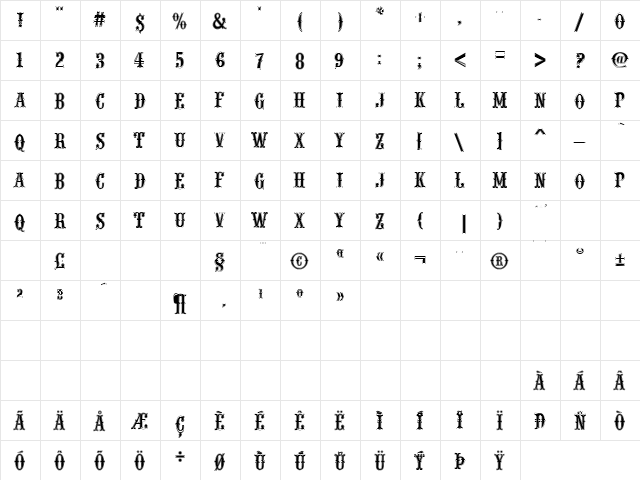
Woodtype URW Outline Regular
Design Context for Woodtype URW Outline Typeface
Woodtype URW Outline echoes the hand-painted signage and woodblock typography of the American frontier, with a warm, rugged personality.
A natural fit for craft spirits, ranch branding, rodeo events, and Americana-inspired design work.
Font Pairing: Combine Woodtype URW Outline with a simple slab or neutral sans — period-accurate companions reinforce the vintage feel without competing for attention.
Pro Tip: Use Woodtype URW Outline for short, impactful bursts of text — it shines in poster headlines and product names rather than extended copy.